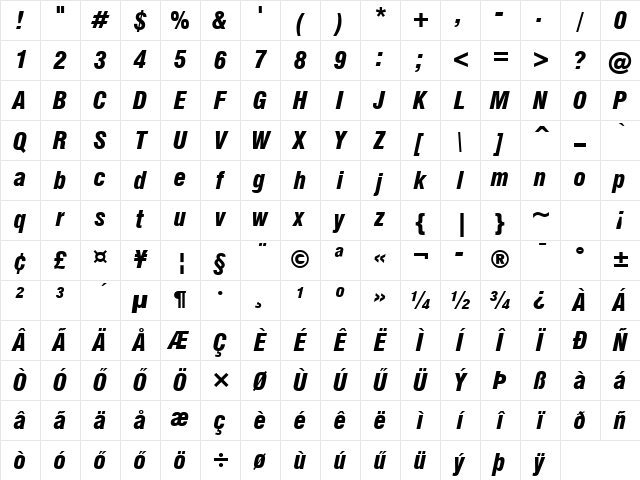
Huni_Swiss 733 BlkCn WS Italic Regular
Design Context for Huni_Swiss 733 BlkCn WS Italic
Huni_Swiss 733 BlkCn WS Italic is a composed and adaptable typeface that performs quietly and consistently across a wide range of design contexts. The slanted form adds forward momentum and visual energy.
Pro Tip: Use Huni_Swiss 733 BlkCn WS Italic for emphasis, pull quotes, and subheadings where its slanted energy can add rhythm to the layout.